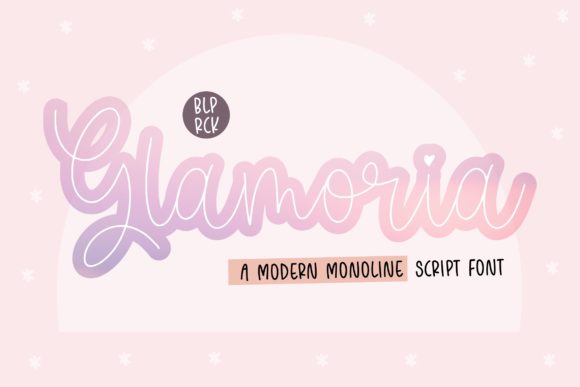
Bring Romance to Your Projects with Glamoria Script
There’s a certain magic in handwritten letters—the kind of effortless flow that digital text often struggles to capture. Glamoria Script bridges that gap, offering the warmth of a personal note with the polish of a professional typeface. As a modern monoline script font, it carries a delicate yet confident energy, making it a standout choice for designers and creatives looking to inject personality into their work. Whether you're crafting a logo, designing wedding stationery, or building a brand identity, this font delivers an emotional resonance that flat, geometric typefaces simply can't match.
What sets Glamoria Script apart is its balance. The strokes are consistent in weight, giving it that clean monoline aesthetic, but the letterforms themselves have a natural, hand-lettered charm. There’s a romantic softness to the curves, yet the overall structure remains legible and versatile. It doesn’t feel overly casual or too formal—instead, it occupies that sweet spot where elegance meets approachability. For anyone working in branding, packaging, or editorial design, this kind of versatility is invaluable.
Where Glamoria Script Truly Shines
Some fonts are built for screens, others for print. Glamoria Script handles both with ease, but its strengths become especially apparent in projects that demand a personal, human touch. Think greeting cards, boutique logos, social media graphics, and product packaging. It’s the kind of typeface that makes a handmade candle label feel luxurious or a bakery’s branding feel inviting. Because it’s a premium font, it comes with the refinement and attention to detail that free alternatives often lack—smoother curves, better spacing, and thoughtful ligatures that make the text feel genuinely handwritten.
For entrepreneurs and small business owners, font choice directly impacts how customers perceive a brand. A script font like Glamoria communicates warmth, creativity, and authenticity. It tells a story before a single word is read. Pair it with a clean sans serif for body text, and you’ve got a visual hierarchy that feels both professional and personal. Bloggers and content creators can use it for headers and pull quotes to break up long-form content, while designers might incorporate it into packaging design to evoke a sense of craftsmanship.
Pairing Glamoria with Other Typefaces
A strong font pairing can elevate a design from good to unforgettable. Since Glamoria Script is a display font with distinct personality, it works best alongside more neutral typefaces. A simple serif font like Garamond or a geometric sans serif like Montserrat can ground the design, letting Glamoria’s elegance take center stage without overwhelming the layout. The key is contrast—pairing a flowing script with something structured creates visual interest and improves readability across different mediums.
When testing font pairings, consider the project’s context. For a wedding invitation suite, Glamoria Script paired with a delicate serif creates timeless sophistication. For a modern brand identity, combining it with a bold sans serif adds contemporary edge. Always test combinations at different sizes and on various backgrounds to ensure the script remains legible, especially in smaller text blocks or on mobile screens.
Practical Considerations for Using This Font
Before committing to any typeface, it’s worth evaluating how well it fits your specific needs. Glamoria Script excels in headlines, logos, and accent text, but like most script fonts, it’s not ideal for long paragraphs. Its flowing style can become fatiguing to read in large doses, so reserve it for moments where impact matters most. Check the font’s character set—does it include the glyphs, alternates, and ligatures you need? A well-designed script font will offer these extras, giving you flexibility to customize letter connections and avoid repetitive shapes.
Readability and Visual Hierarchy
Typography isn’t just about aesthetics—it’s about communication. Glamoria Script enhances visual hierarchy by drawing the eye to key elements, but it requires thoughtful implementation. Use it sparingly for maximum effect: a standout headline, a featured quote, or a logo mark. Pair it with ample white space to let the letterforms breathe. In web design, test how it renders across devices; some script fonts can lose detail on smaller screens, so adjustments like increased font size or simplified styling may be necessary.
For print projects like editorial design or packaging, consider how the font interacts with paper texture and ink. A monoline script like Glamoria tends to reproduce cleanly, but it’s always wise to print a proof before final production. The goal is to preserve the font’s romantic, handcrafted feel while ensuring every word remains clear and intentional.
Take time to explore its full potential. Experiment with different weights, test it in real-world applications, and see how it interacts with your existing design elements. The right font doesn’t just look good—it works hard, communicates clearly, and leaves a lasting impression. With Glamoria, you’re not just choosing a typeface; you’re embracing a style that feels both timeless and distinctly personal.